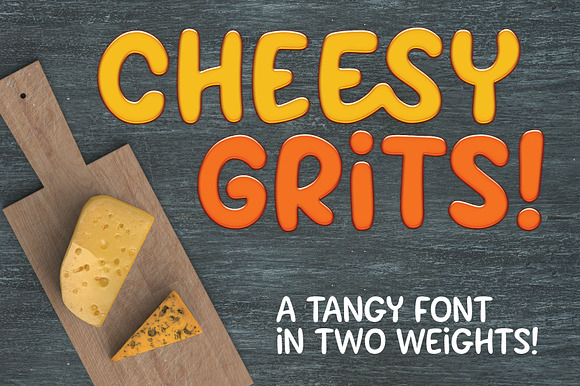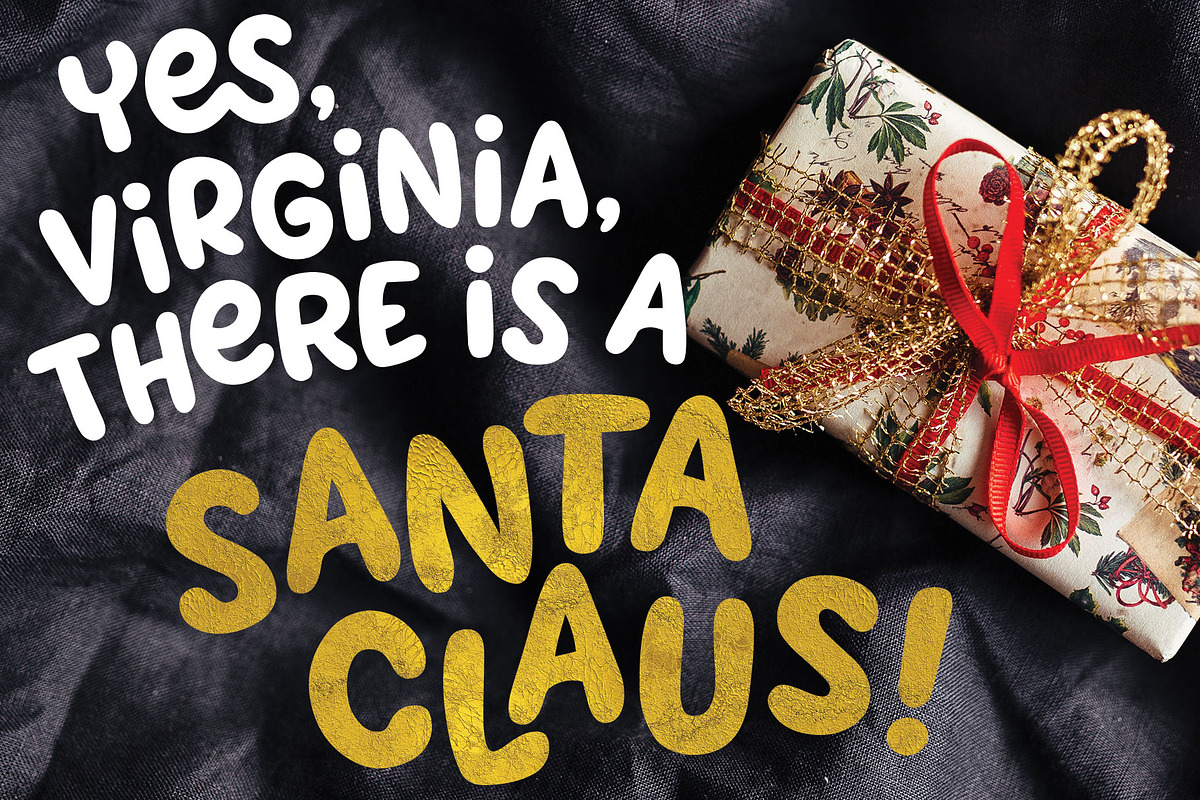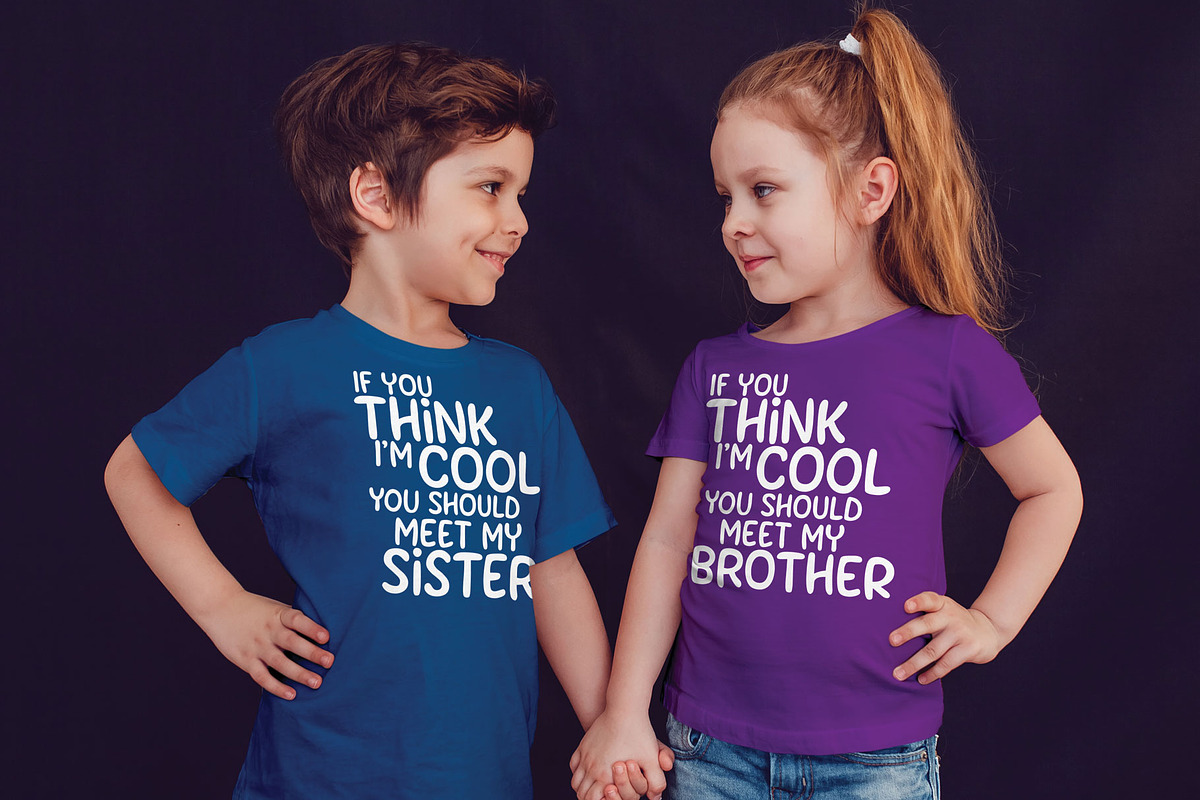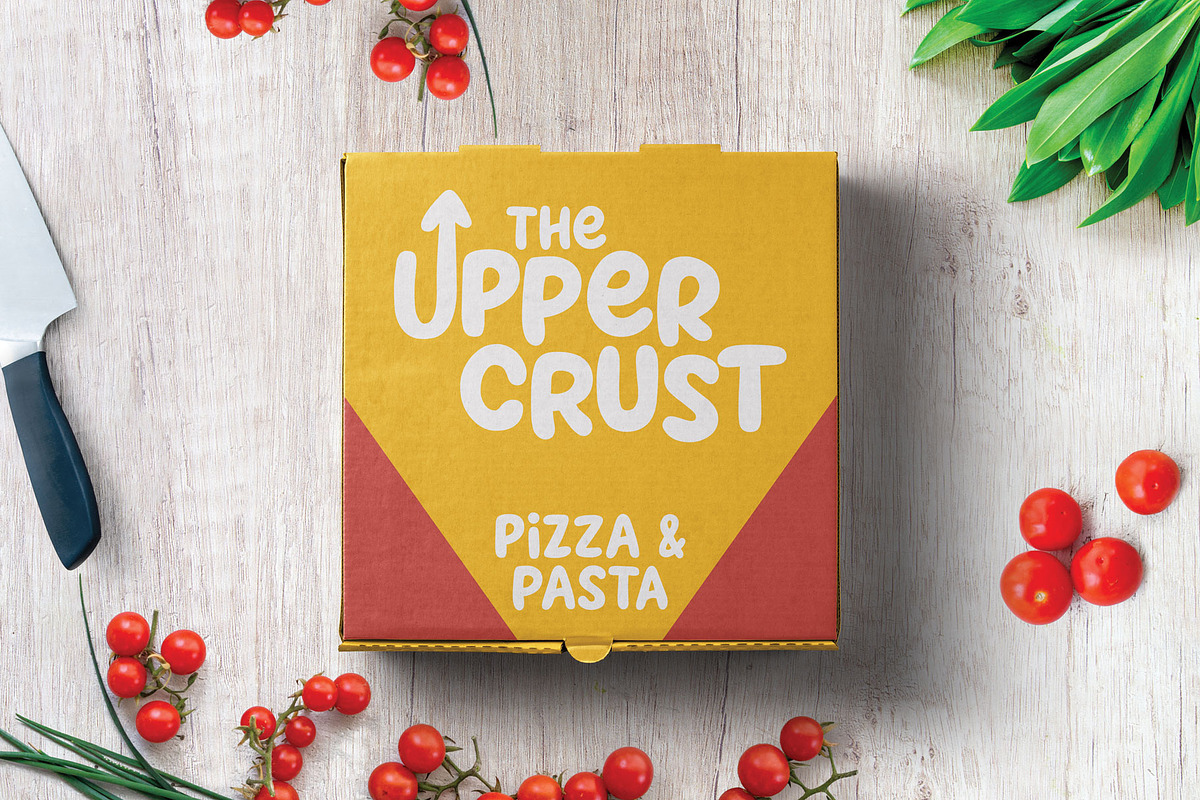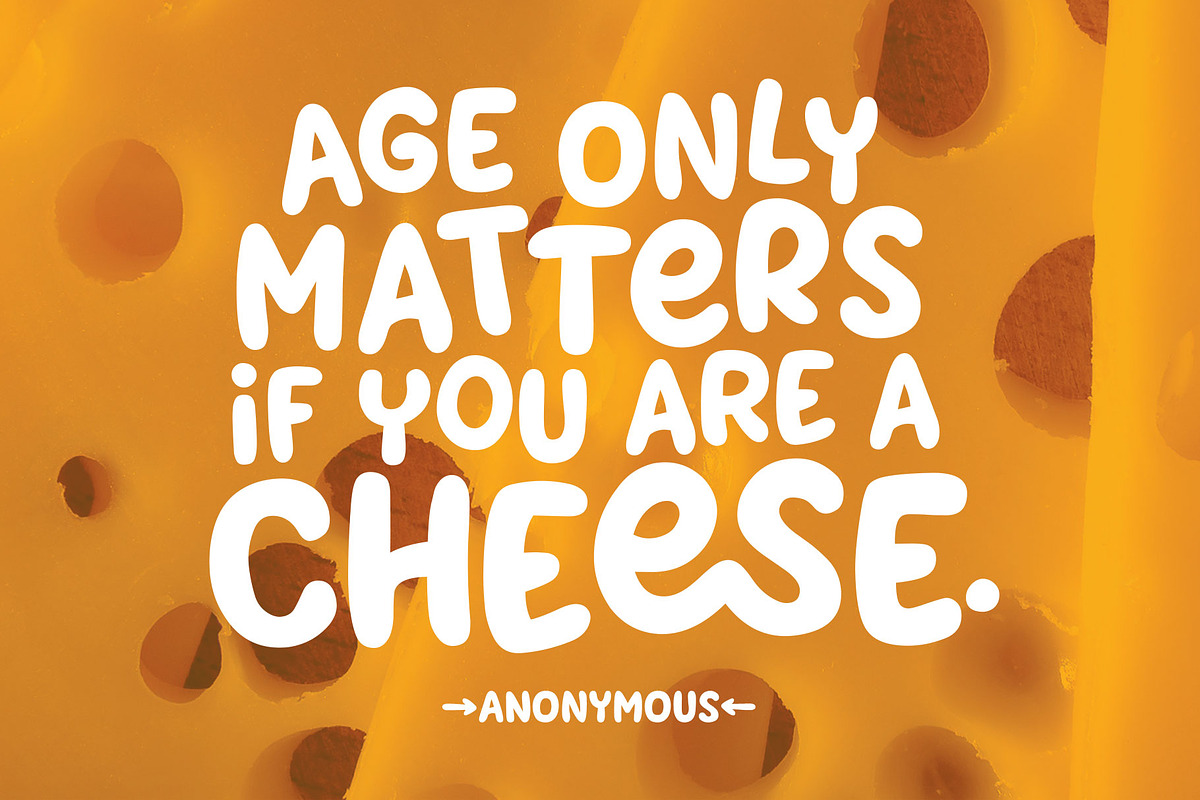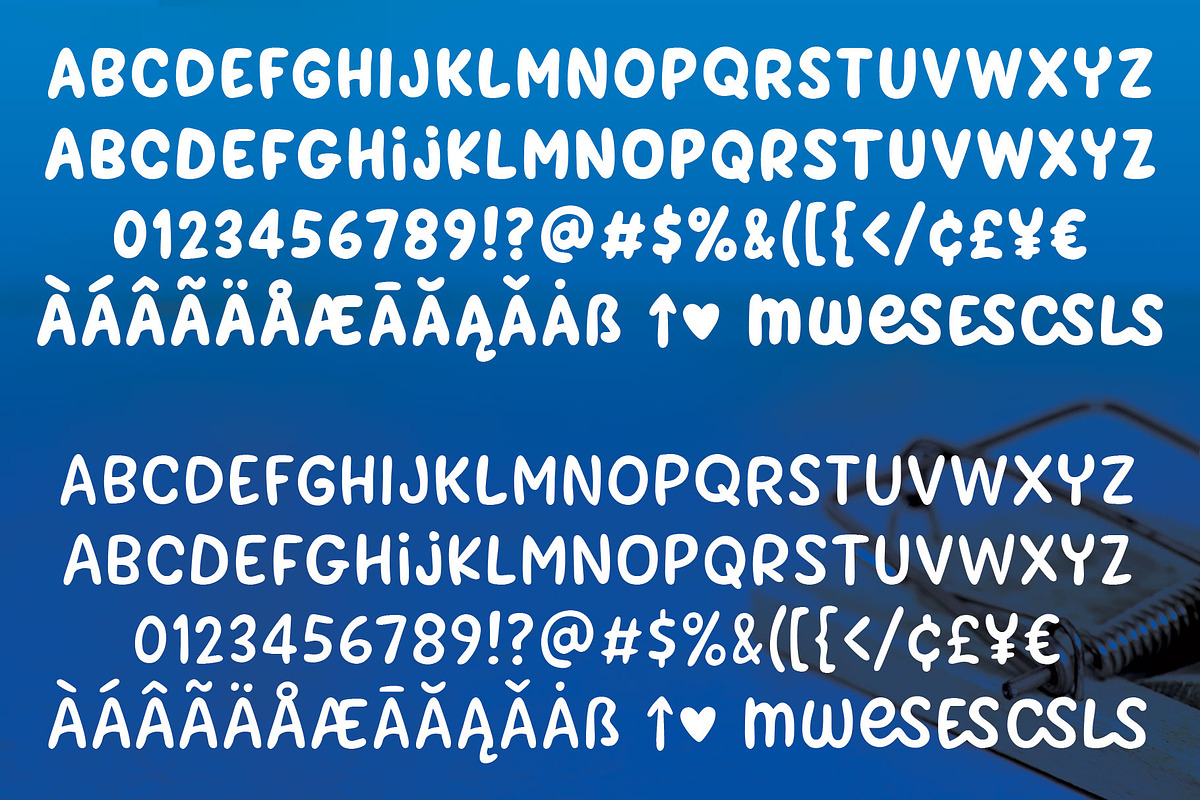
Cheesy Grits: a tangy fun font!
I'd never had grits until I moved to Florida around 10 years ago. Almost everywhere I found them, they were loaded up with cheese. Which ... I'm never going to complain about added cheese, folks.
Cheesy Grits is a fun, fat, blobby font that's perfect for logos, branding, packaging, crafts, and tons of other projects. It has two uppercase sets for variety, plus a few additional double-letter ligatures and alternates.
I liked making Cheesy Grits so much, I decided to make a second "slim" version -- still as quirky and fun, but with thinner strokes, just so you have options!
- Cheesy Grits comes with my usual set of 300+ extended Latin characters for language support -- and they're all included in the PDF as well!